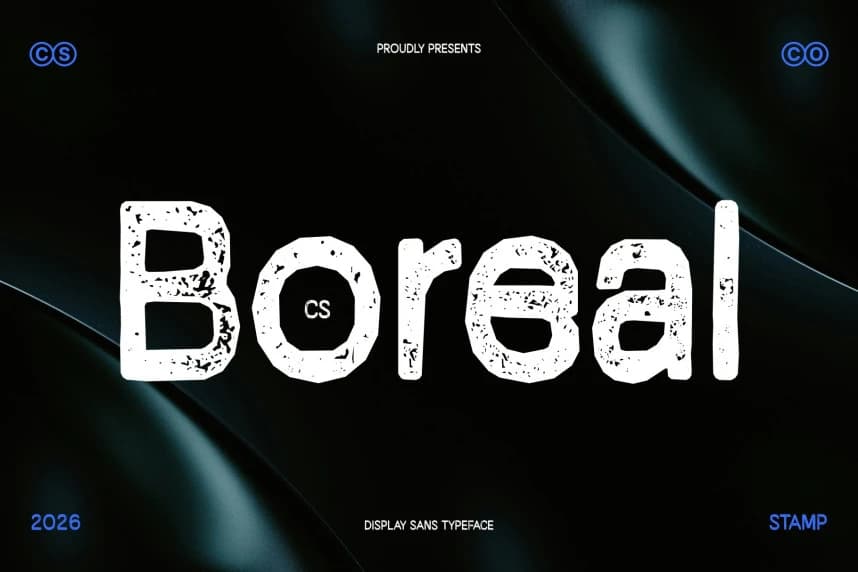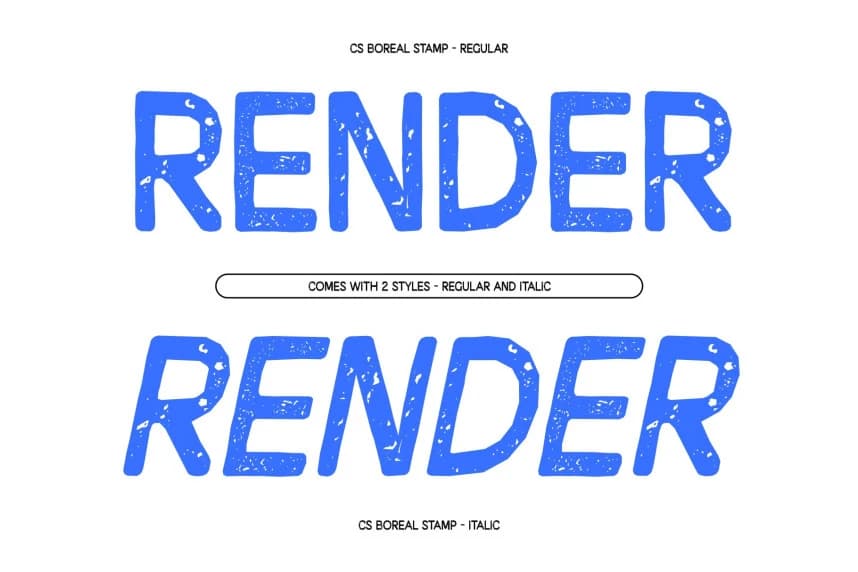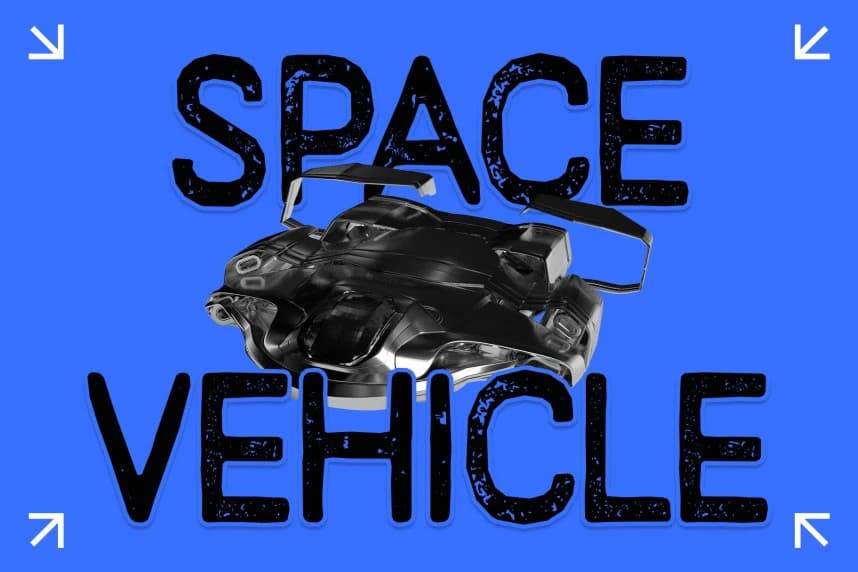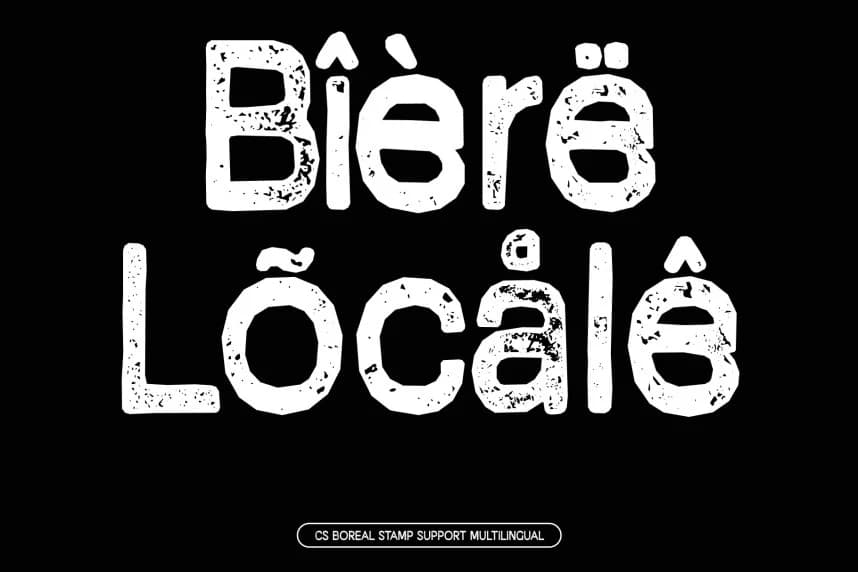
CS Boreal Stamp Font
CS Boreal Stamp Font – Modern Sans Serif with Textured Quirky Character Clean Contemporary Form with a Stamped Finish. This elevates the modern sans serif foundation with a subtle stamped texture that introduces warmth and tactile depth